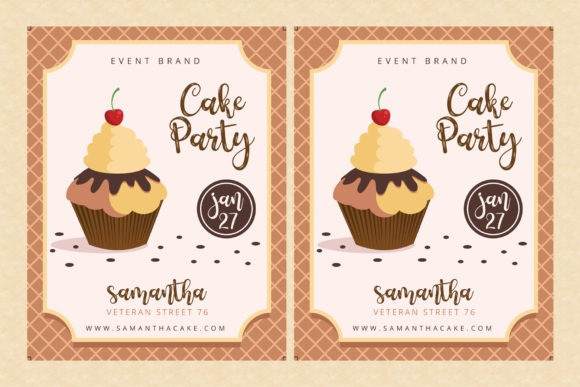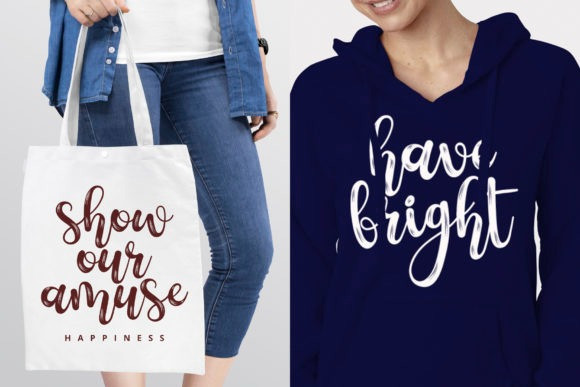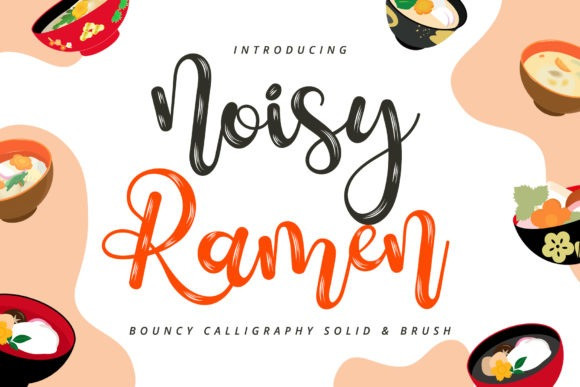
Noisy Ramen Font
Noisy Ramen Font is a sweet and bouncy handwritten font. It is playful and authentic, and is suitable to a variety of crafty designs, stickers, t-shirt mock-ups, social media, and others.